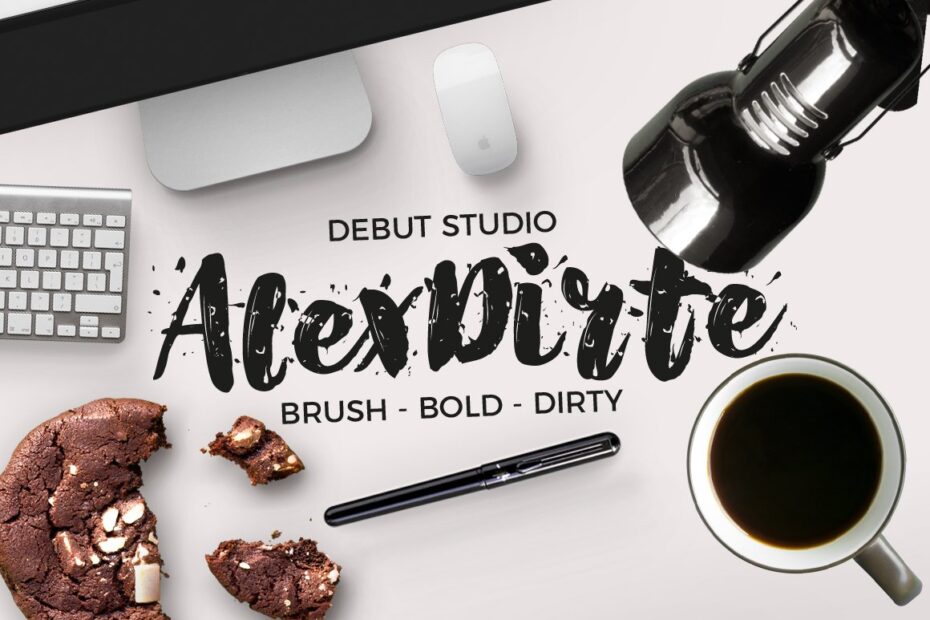
Get Ready to Add Some Edginess to Your Designs
Have you ever been working on a project, pouring your heart and soul into it, and suddenly, the words just won’t come together? The text looks too clean, too polished, and just doesn’t match the vibe you’re going for? We’ve all been there, and that’s exactly when we start searching for that one special font that can give our design a much-needed edge.
That’s where the AlexDirte Font comes in – a stunning set of two brush fonts, consisting of AlexDirte Brush and AlexDirte Slant Brush. Each letter is handcrafted with a dirty, gritty texture, giving it a rough look and feel that’s perfect for adding some grit to your designs. Whether you’re working on a gritty magazine cover, a rebellious music album, or a bold street art campaign, the AlexDirte Font is the perfect addition to take your design to the next level.
For designers, the AlexDirte Font is a valuable asset in their toolkit, offering endless possibilities for creative expression and experimentation. Its unique texture and style make it a standout choice for anyone looking to add some personality to their work.
AlexDirte Font Key Features
- Unique Characteristics: The AlexDirte Font features a unique, distressed design with a mix of bold and cursive elements, making it ideal for creative and artistic projects.
Designer Review: AlexDirte Font
Overall, I think AlexDirte Font is a decent choice for certain projects, but it has its limitations. Here’s my honest take on this font.
- Unique aesthetic: AlexDirte Font has a distinctive look that sets it apart from more common fonts. It’s perfect for designers who want to add some personality to their projects.
- Good legibility: The font is clear and easy to read, even at smaller font sizes. This makes it suitable for body text or headlines.
- Wide language support: AlexDirte Font covers a wide range of languages, making it a good choice for international projects.
- Limited stylistic flexibility: AlexDirte Font is quite rigid in its design, which can make it difficult to customize or style it in certain ways.
- Not ideal for complex typography: Due to its unique design, AlexDirte Font can be challenging to use in complex typography scenarios, such as multi-column layouts or intricate headers.
While AlexDirte Font has its strengths, its limitations might make it a less-than-ideal choice for designers who prioritize flexibility and versatility. However, for projects that require a unique aesthetic or a specific style, it could be a great option.
Tips for Getting the Most Out of AlexDirte Font
Here are some tips to get the most out of AlexDirte Font:
- Use it for creative and artistic projects.
- Pair it with bold and bright colors to make it stand out.
- Experiment with different font sizes and styles.
AlexDirte Font is perfect for:
- Typography-based art projects.
- Designing social media graphics and advertisements.
- Creating unique and eye-catching presentations.
Alternatives to AlexDirte Font
Montserrat is a modern sans-serif font designed for digital media. It’s ideal for use in interfaces, headings, and body text. Montserrat is more geometric and clean compared to AlexDirte Font, making it perfect for creating a professional and minimalist look.
Open Sans is a clean and modern sans-serif font that works well for body text and headings. It’s highly legible and suitable for digital interfaces. Compared to AlexDirte Font, Open Sans is more straightforward and lacks the unique flair of AlexDirte Font, but it’s a more versatile and readable option.